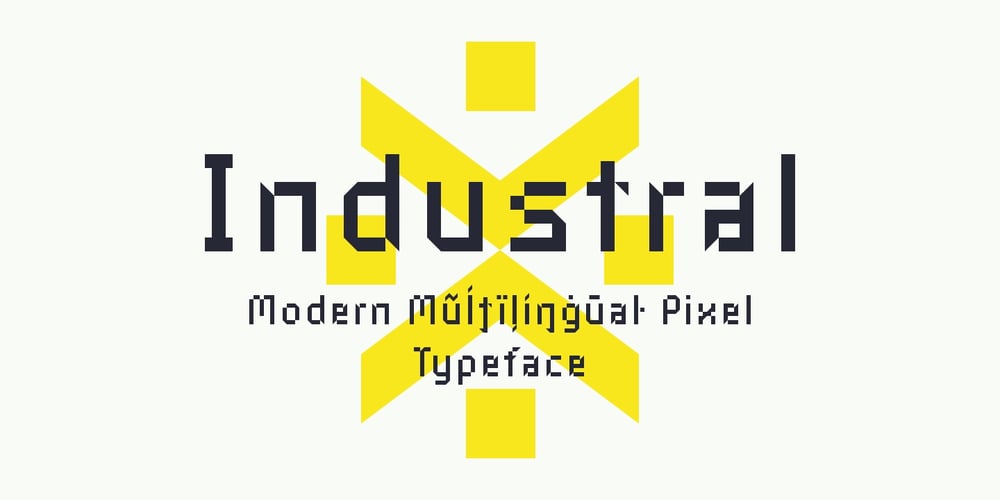
Industral
Industral font
Industral Font Family was designed by Petr Ondrusz and published by Little Type. Industral contains 2 styles and family package options. Industral is a “pixel style” typeface for modern use. Highly suitable for small text. The common feature is sharp edges and square base construction which enables legibility for long text paragraphs. Contains a total of 413 glyphs, including latin extended diacritics for most languages.